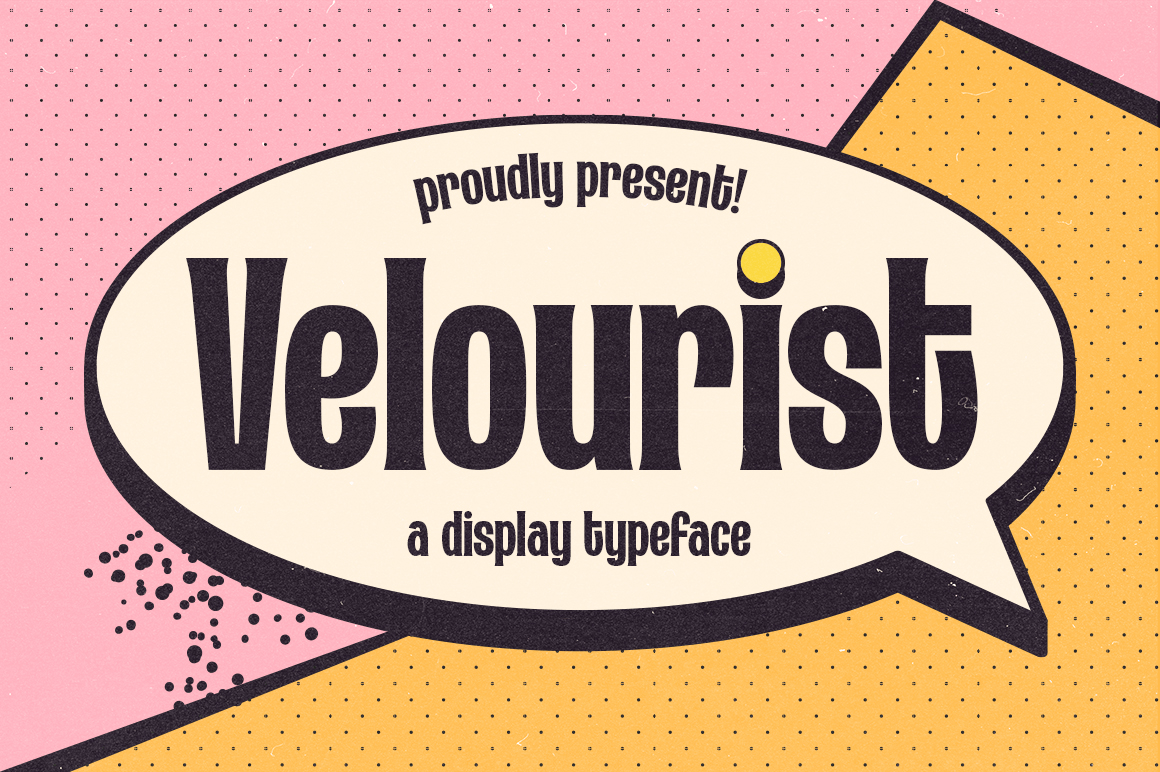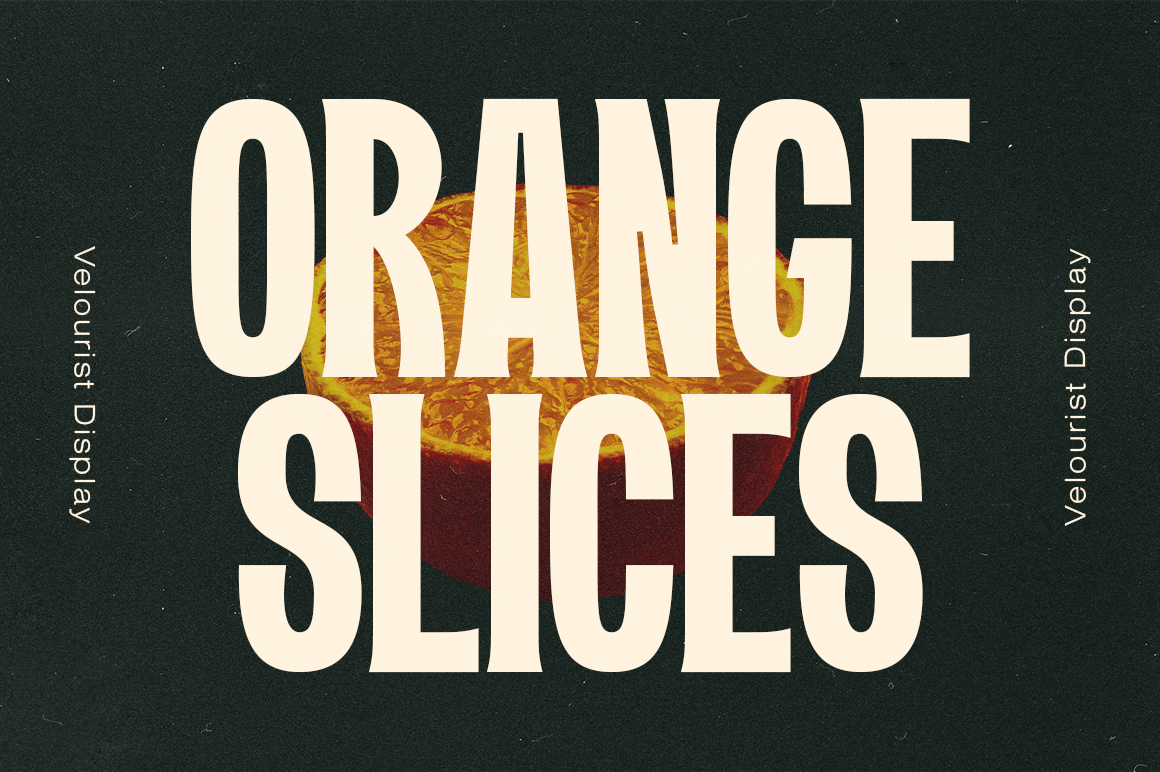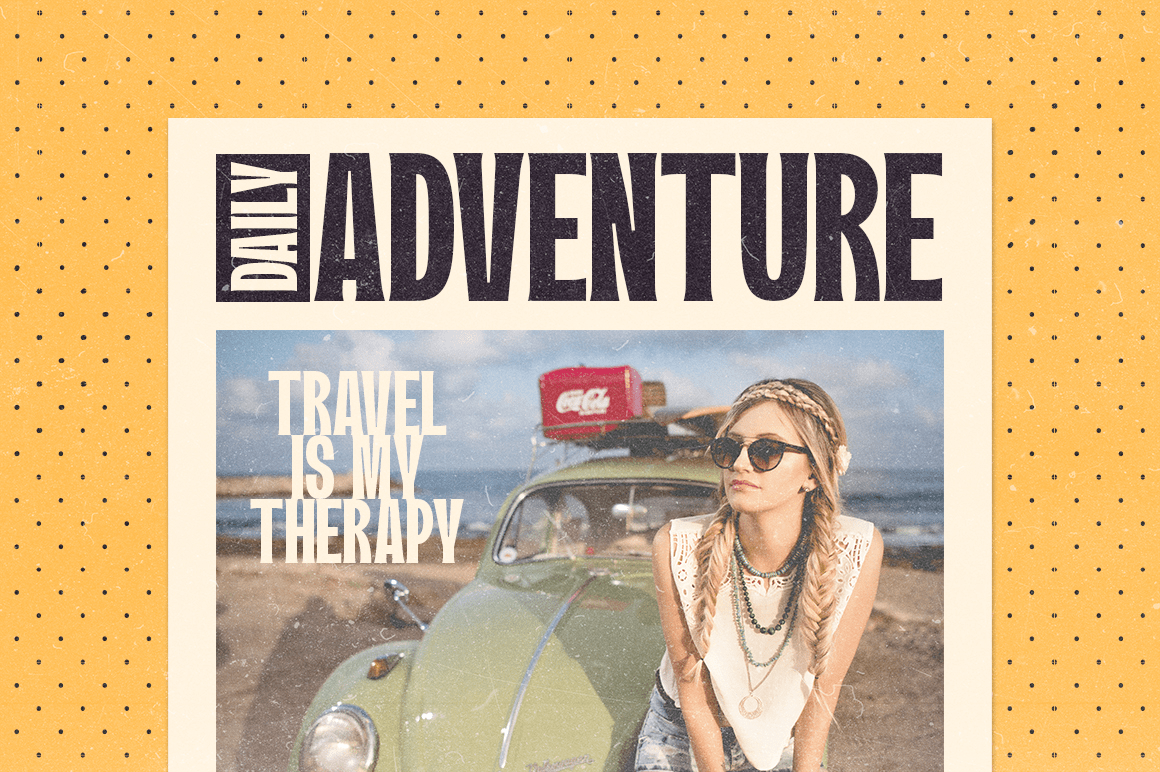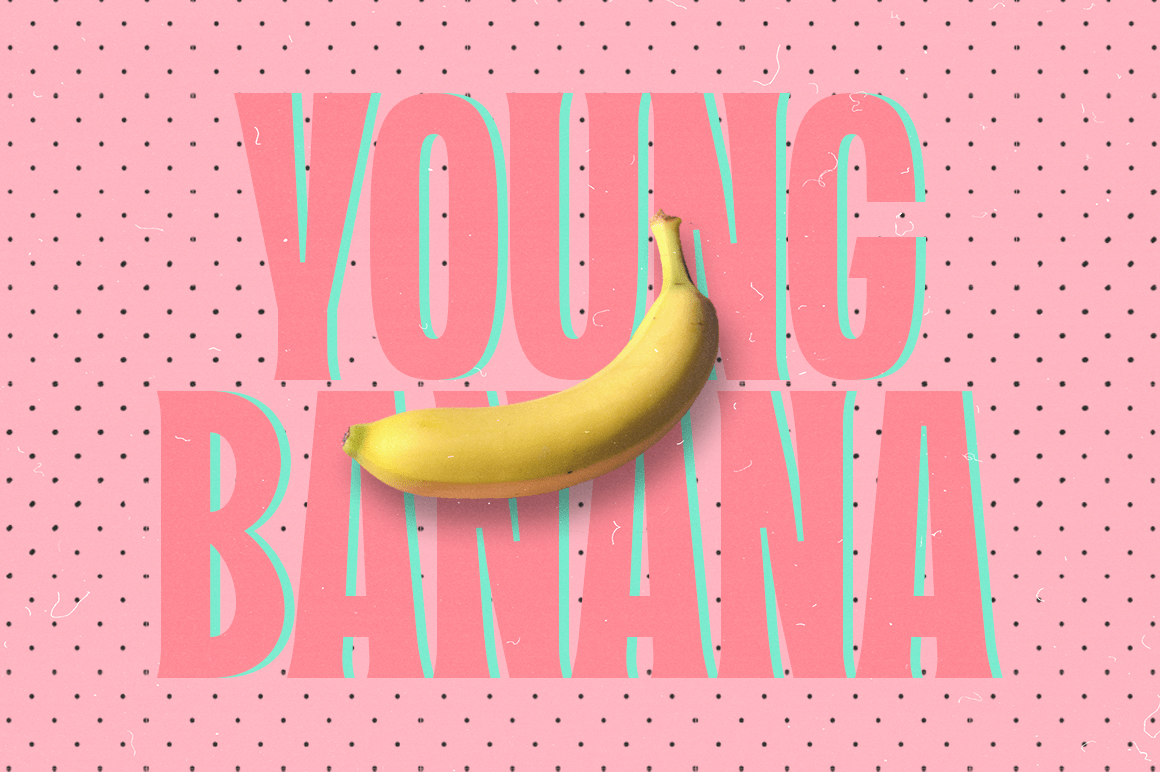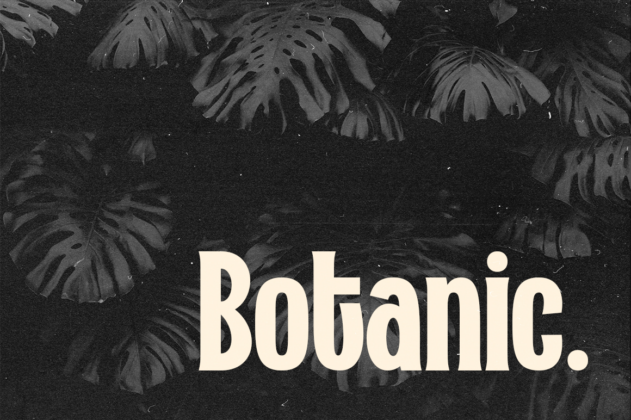
Velourist is a bold display type that\’s absolutely perfect for editorial headlines with retro looks. It\’s unique, bold, and slim figure make it a great fit for t-shirts, posters, and magazine covers.